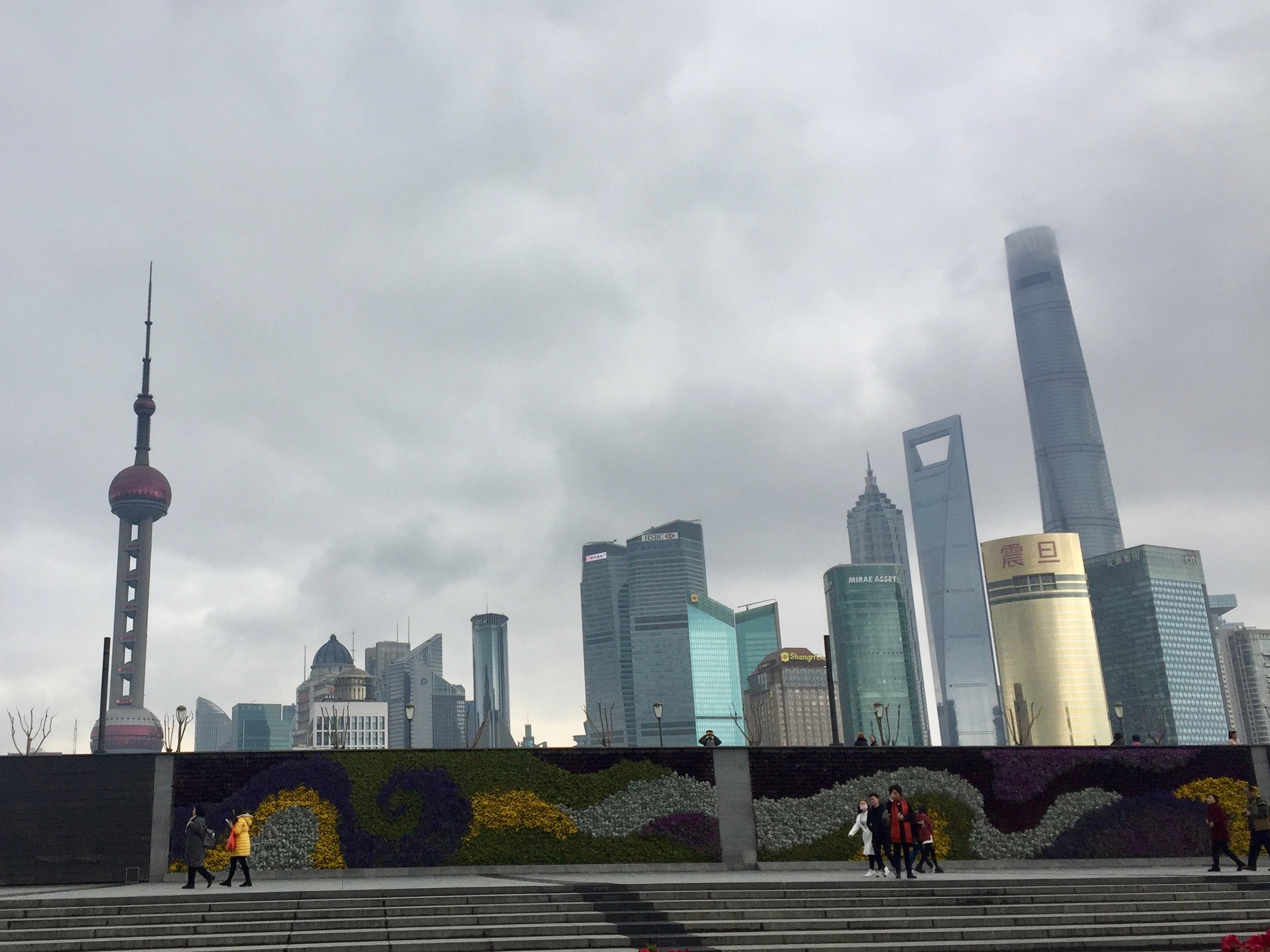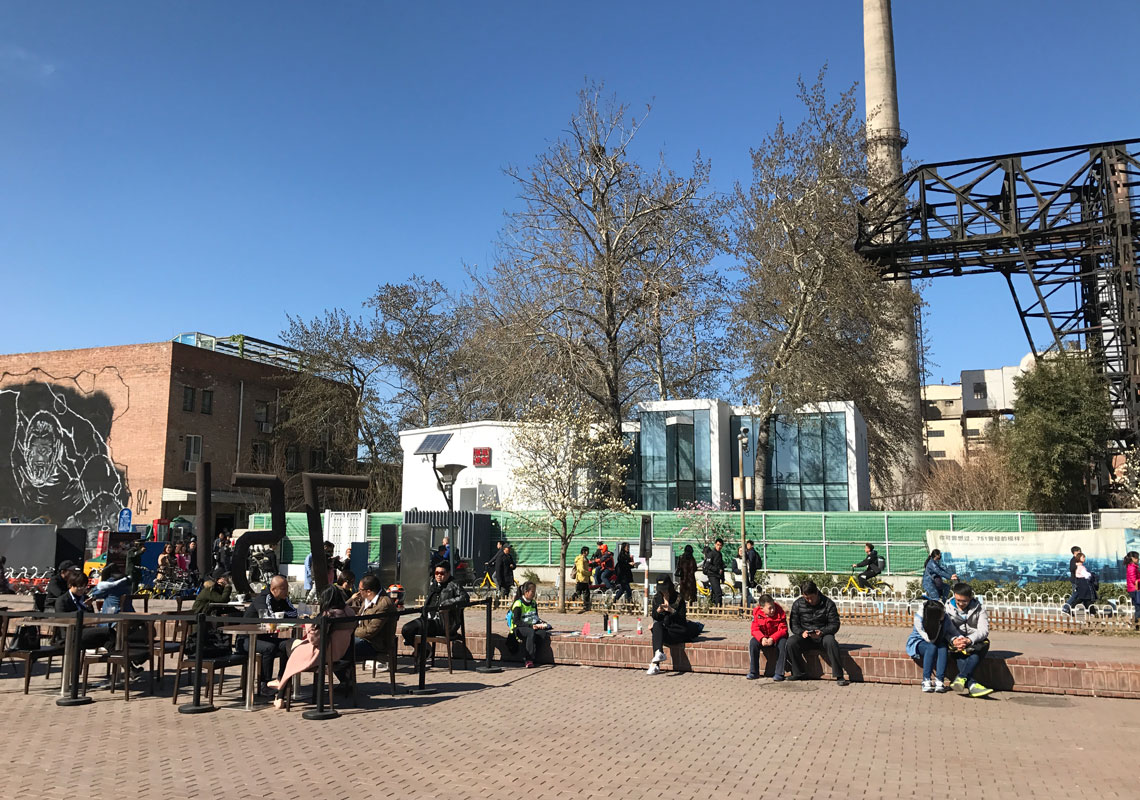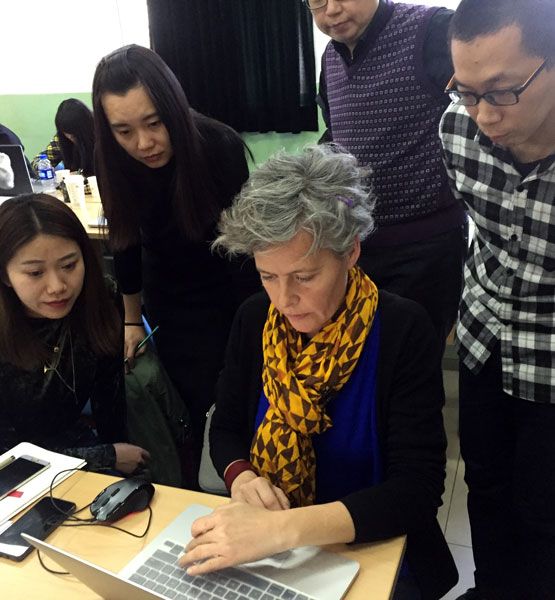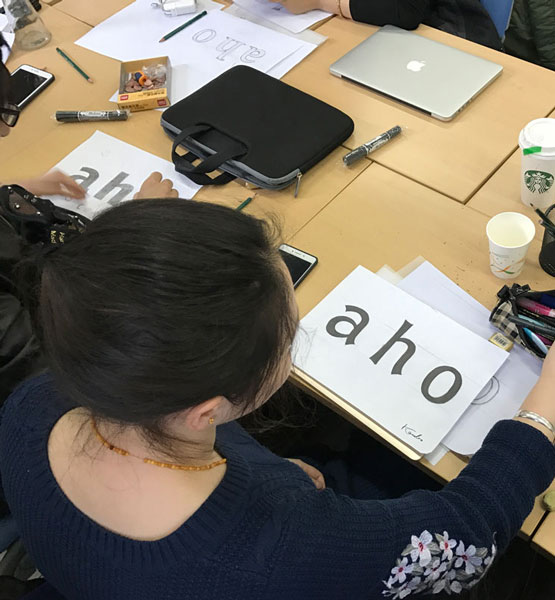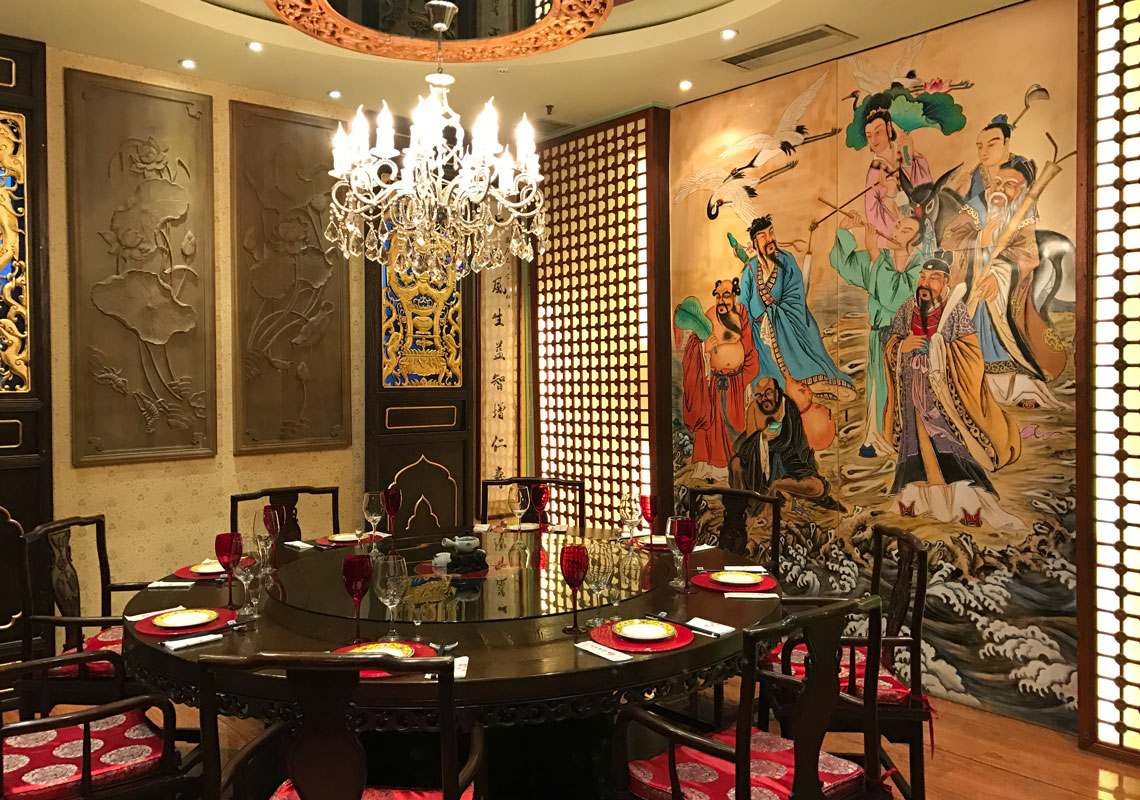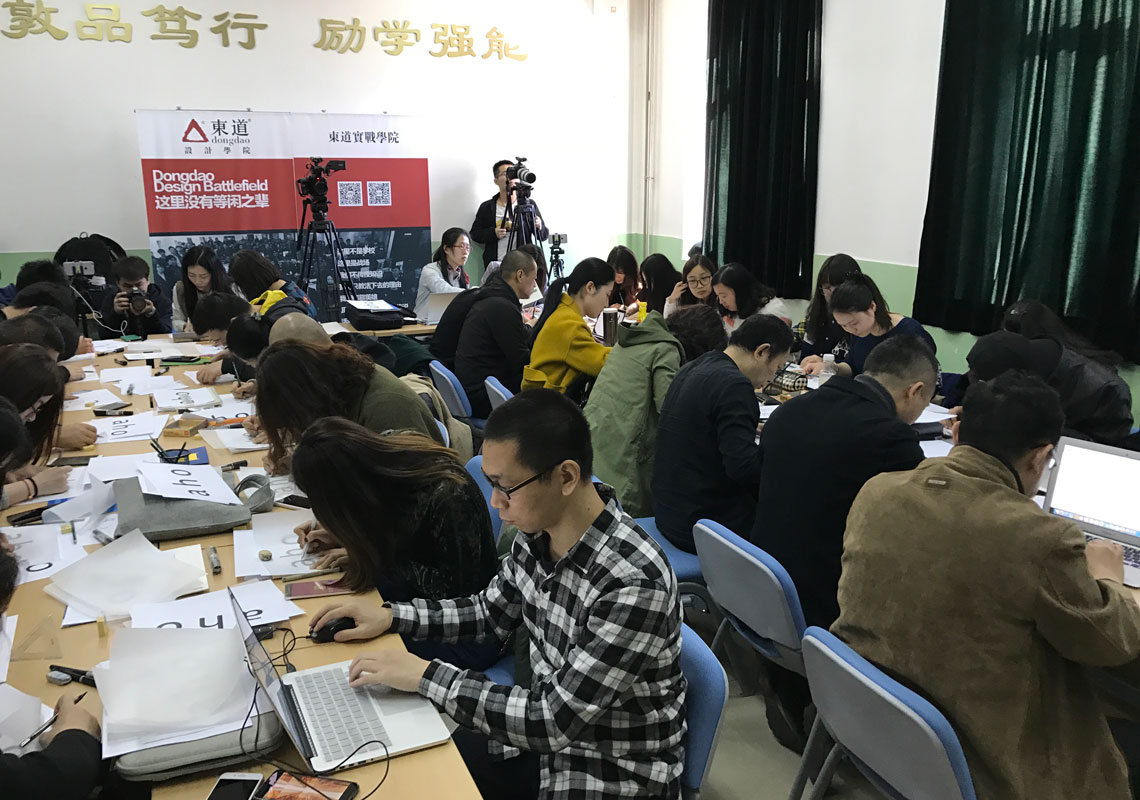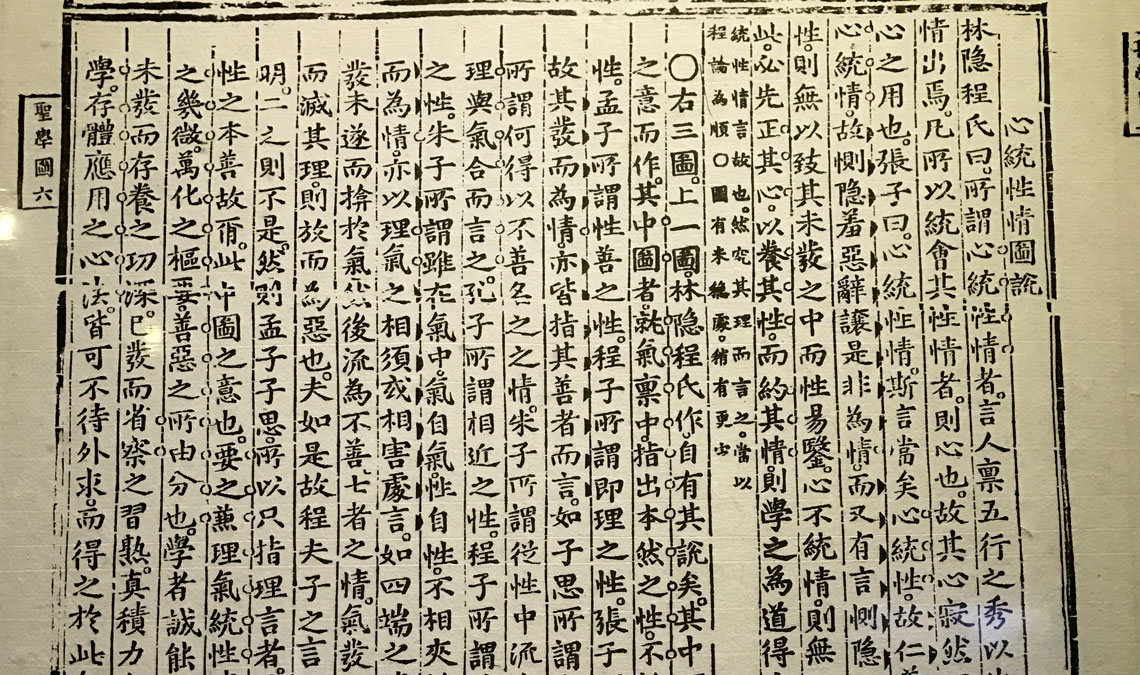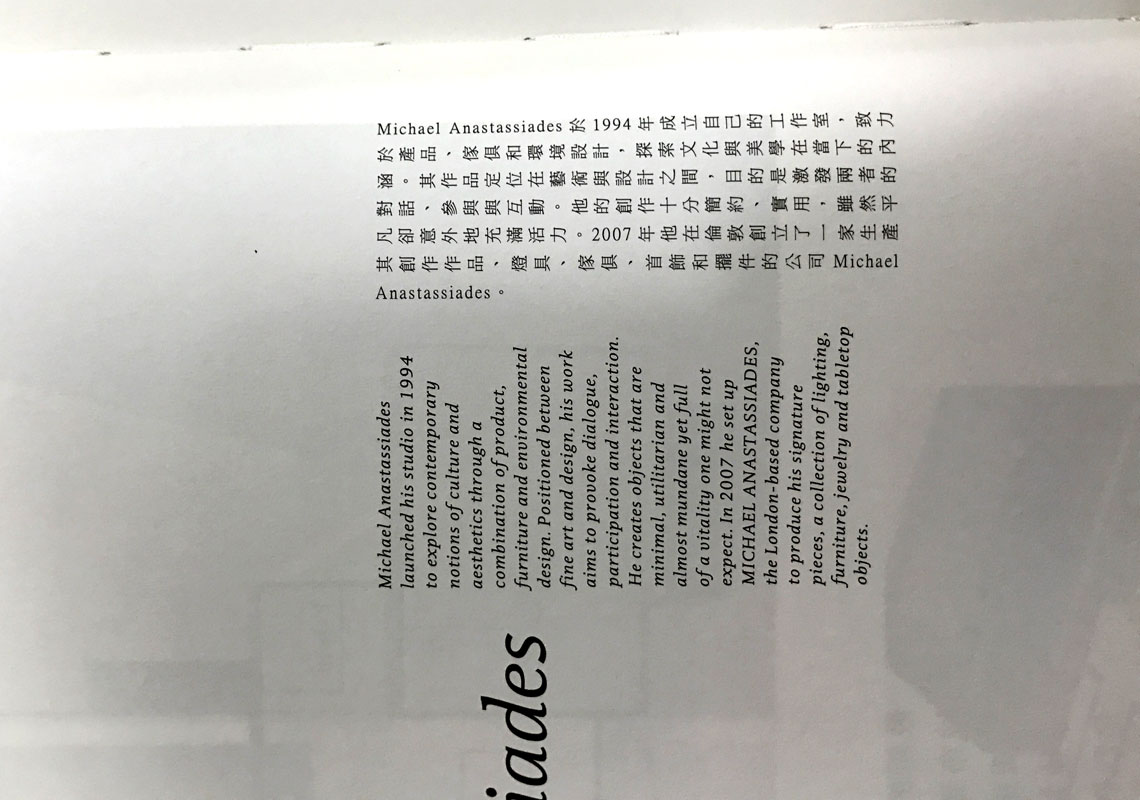
The Way of Type 2017
As most of our regular readers know by now, all of us at TypeTogether make a number of trips every year for academic reasons: teaching workshops, lecturing at conferences, research trips or simply to learn more about type and typography. 2017 started with a rather busy schedule that would take Vik and José to mainland China for nearly three weeks for a real marathon of educational activities. Here are, in no particular order, a few interesting facts and curiosities they brought back from the trip.
The forum and exhibitions took place at a modern auditorium at the university of media and advertising, Beijing.
China is big
It may seem like an obvious comment, but the full size of China, its magnificence, the variety of landscapes and cuisines, its cultural richness, can only be measured when traveling through the country. TypeTogether’s founders started their visit in Beijing, taking part at the opening of the exhibition and forum “The Way of Type 2017”. It must be pointed out that this exhibition is a pet project of Dr. Liu Zhao, TypeTogether’s press representative in China. The conference included lectures by our friend and collaborator Gerry Leonidas (Reading University), Huang Xue Jun, who presented the great font releases that our Chinese partner Founder Type has planned for 2017, Veronika, José, and several great designers from Mainland China and HongKong. Vik and José also lead a type design workshop at the Dongdao University, an educational venture created by the renowned design firm Dongdao.
Additionally, the trip included three other cities —Xi’an, Changsha and Shanghai—, each of them with a population of over 20M, that had to be reached by plane in order to be able to fit the activities in a very tight schedule. In numbers, the 2017 China tour accounts for 4 cities, 9 lectures, 1 workshop, 3 seminars for design teachers in different universities, more than 10 business meetings, 20 banquets and an undefined number of bottles of beer.
Dr. Liu Zhao
José Scaglione
Veronika and José visiting their partner Foundertype at their headquaters in Beijing.
Type design workshop at the Dongdao Academy, Beijing.
Veronika Burian: type design workshop at the Dongdao Academy, Beijing.
China has a loooong history
Large scale industrial power, cutting edge technology firms and the tallest skyscrapers in the world exist naturally next to China’s rich history and cultural heritage that clearly represent and define the identity of each and every region including the ones that TypeTogether visited.
Beijing is pure traffic chaos to foreign eyes, but after a while it becomes clear that there is some kind of very special order to it. Since José’s 2016 visit the city incorporated a new bike rental system, so that the streets are swarmed by yellow and orange bicycles, a promising trend to fight the city’s obnoxious bad air quality. The visit also included a walk through the 798 art district, a dinner in a traditional tea house just meters away from the Forbidden City, a full day of back-to-back meetings at Founder Type’s headquarters and a lot of sweet and sour cuisine, a specialty of this region. Towards the end of the last day in Beijing, disaster arrived in the form of a virus that knocked José down for nearly 72 hours.
Art and Design quarter 798 in Beijing on an exceptionally beautiful day.
CEO of Foundertype Mr. Jianguo Zhang and José at the traditional Lao She Tea House in Beijing.
Private room for a banquet at Lao She Tea House that we were lucky enough to eat in.
HUTONG, WUDAOYING
SCULPTURE GUARDING THE ENTRANCE TO A SCHOOL
José Scaglione, type designer
xi’an
In Xi’an, one of the oldest cities in China, Vik visited the old town center with the grand drum and bell towers, the bustling markets of the muslim quarter and drank Oolong tea in traditional fashion prepared by a tea master on a gongfu table from tiny cups while José was lying down with fever. Only a heavy amount of drugs  —see picture— allowed him to deliver a lecture and a workshop on the second day. Sadly, by the end of that very same day Vik said “I think you gave it to me”, referring to the same virus —not the workshop— that would knock her down for 72 hours as well. The last day in Xi’an Ming Wei, product director at Founder Type, and Dr. Sun, teacher and researcher at the the EuroAsia University took José to the very impressive digging site of the Terracota Warriors.
Students and teachers at the Eurasia university are busy finding the right matching Latin and Chinese.
José Scaglione teaching type design in Xi'an, China
Traditional gonfu table for prepairing and sharing tea.
calligraphy brushes
Bell tower
Site of the famous Terracotta Army created to protect Qin Shi Huang, the first Emperor of China, late 3rd century BCE.
Changsha
The third stop was Changsha. It was a rather short visit but the TT team got a nice taste of its famous spicy food… the mushrooms would make Mexican people sweat! Vik was feeling well enough to visit the impressive Yuelu Academy, established in 976 AD. It is one of the four most prestigious academies in China, a place dedicated to higher learning and confucianism, still functioning today as Hunan University.
Yuelu Academy.
Traditional chinese stone carving
confucian teachers
block print, 1793 qing dynasty
block print edition by longshon academy
Shanghai
It is in fact extremely common to see the two scripts side by side within the same line of text or paragraph. Although Chinese has its own numerals, Arabic numbers are preferred within Chinese text setting. The same is true for western punctuation marks such as parenthesis, dashes, comma and colon. The combination of these two scripts brings about some problems though. So it appears that no clear unified consensus exists about how Latin and Chinese should vertically align with each other. This results in a series of typesetting and ortho-typographic problems that are being tackled and passionately discussed by local experts.
If you are into typography, China is certainly a very exciting place to be right now!